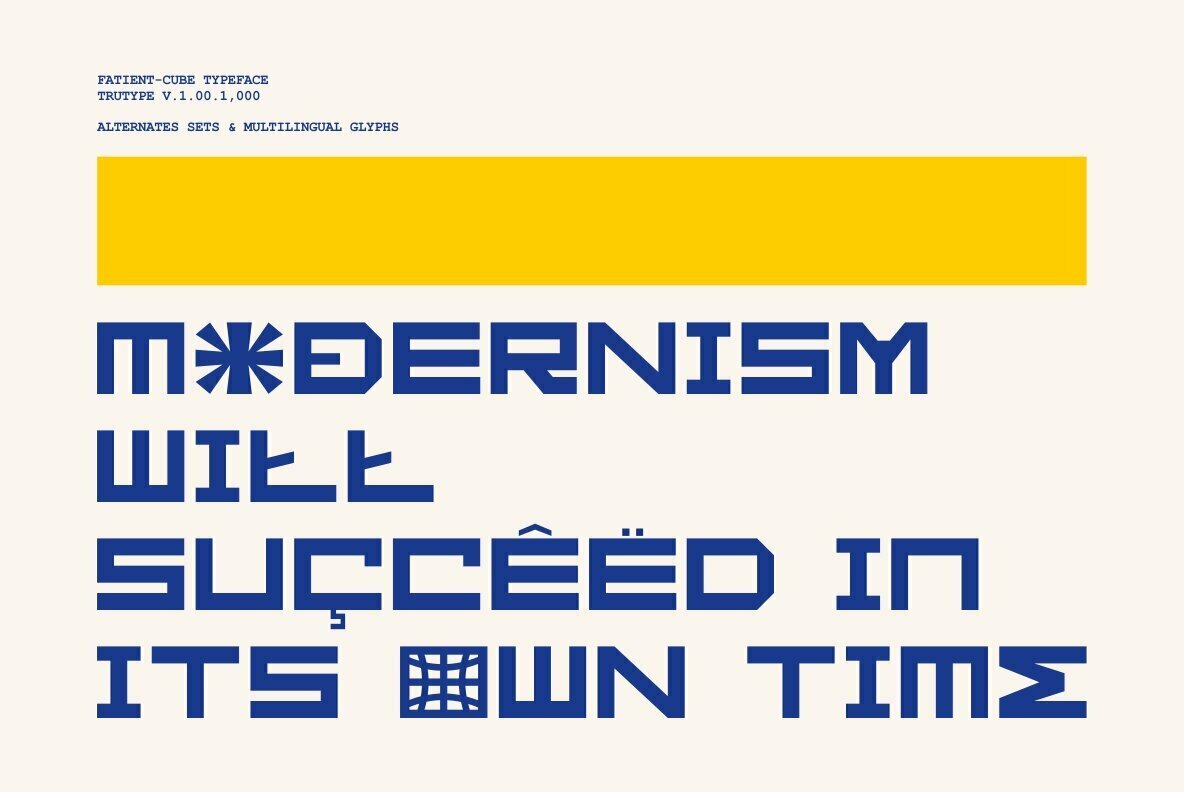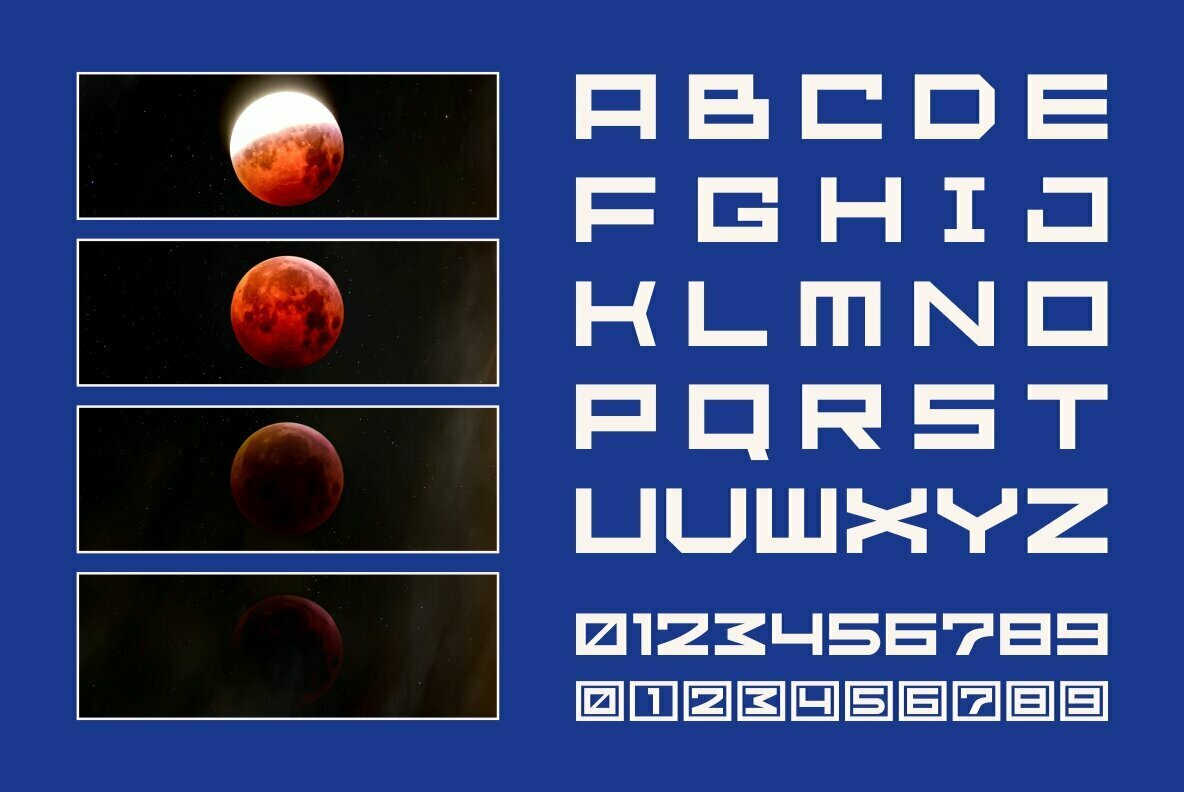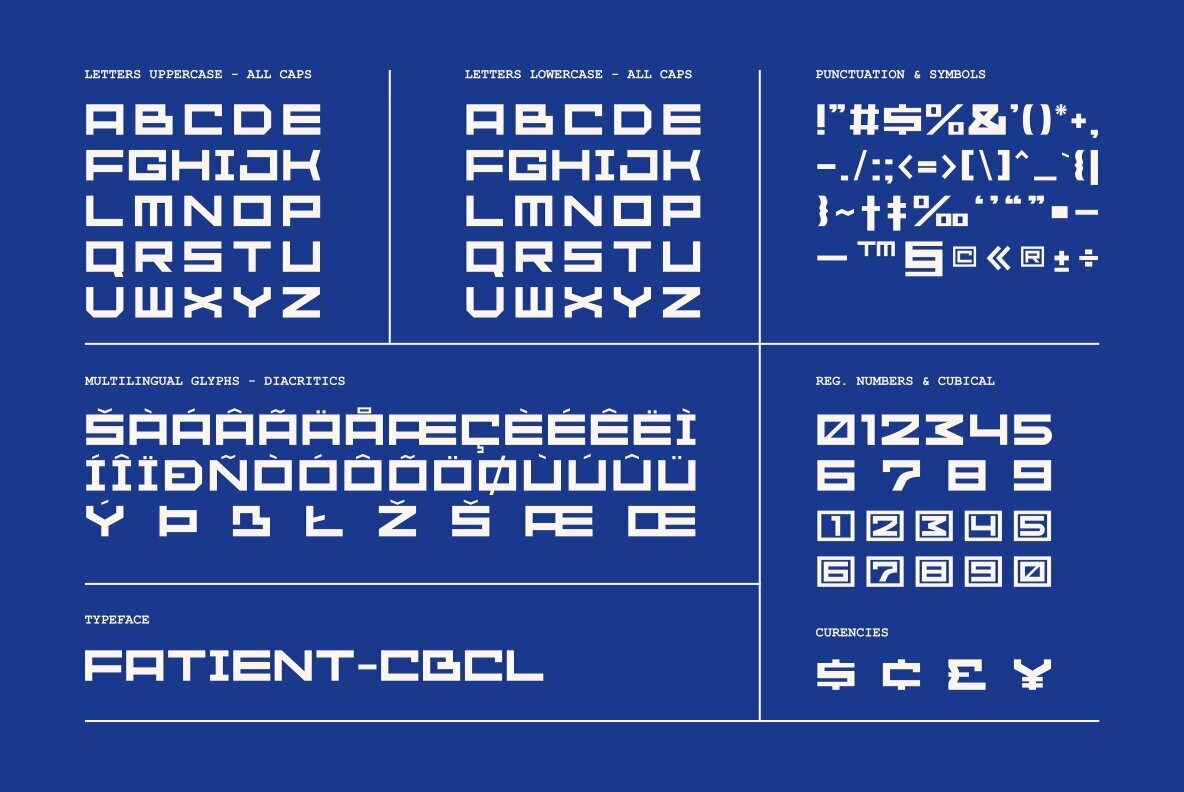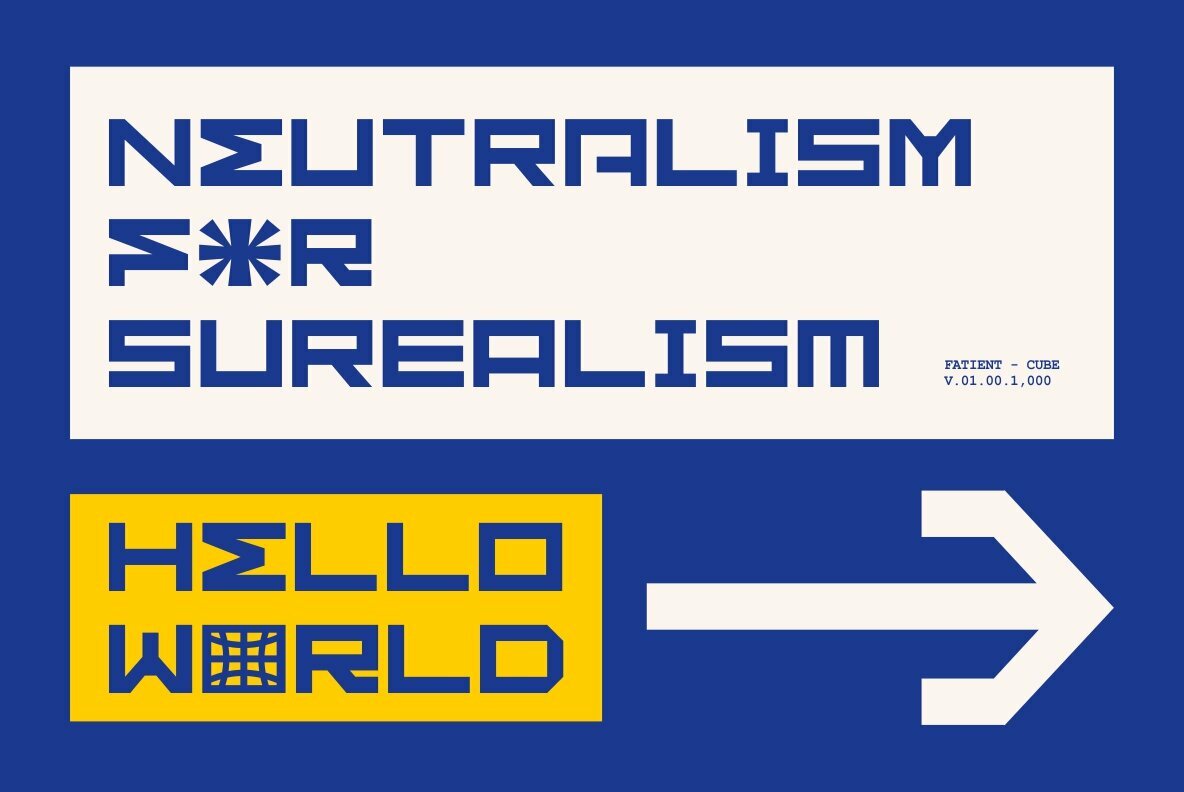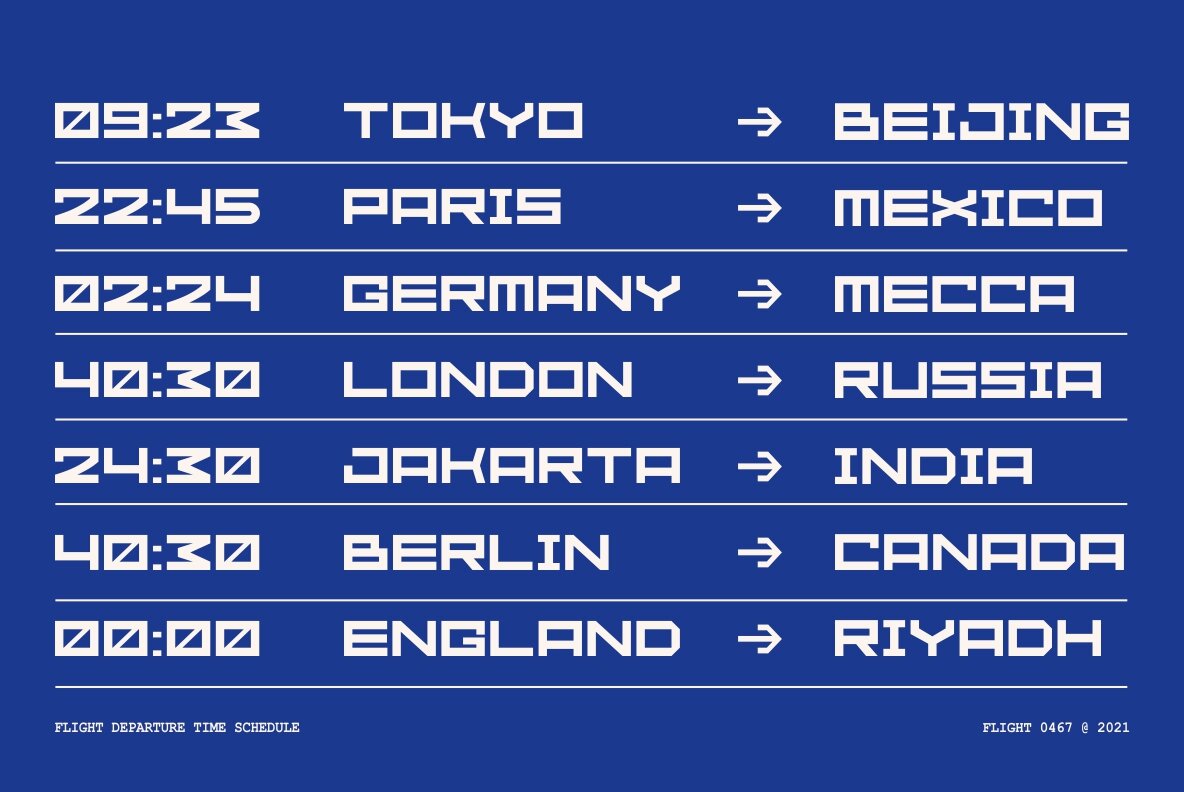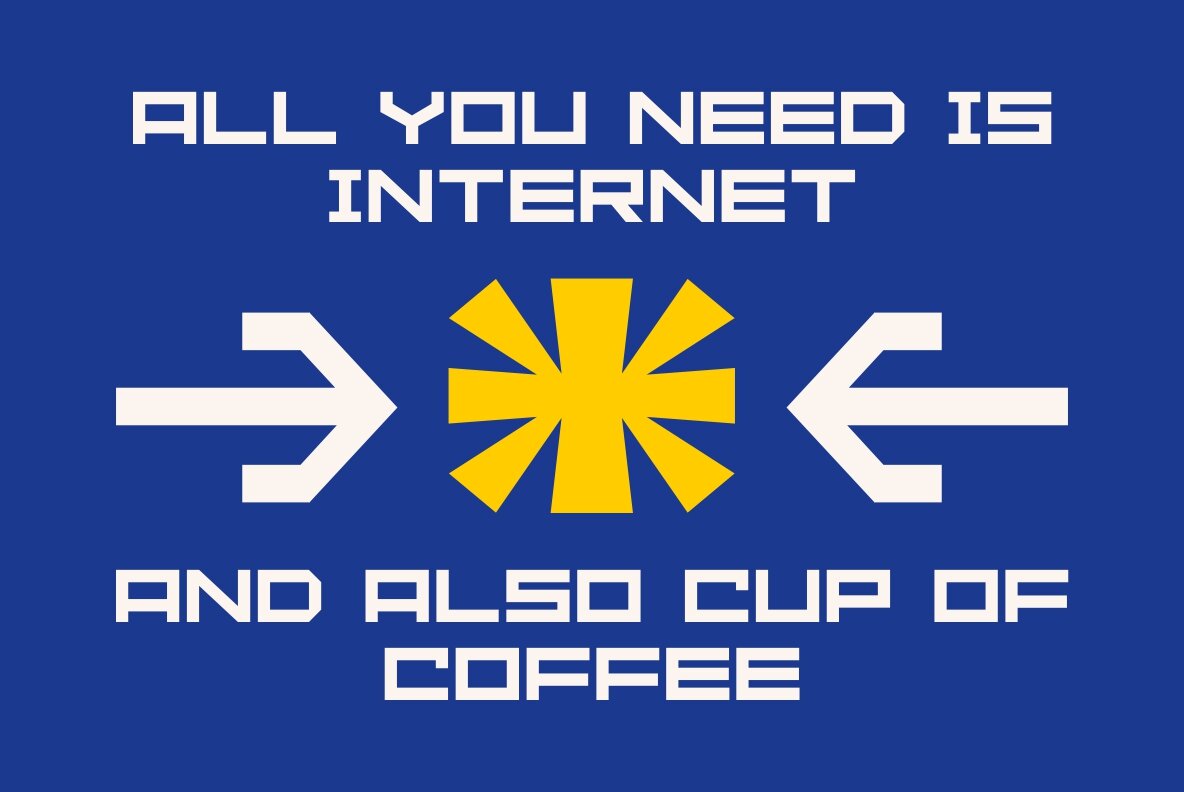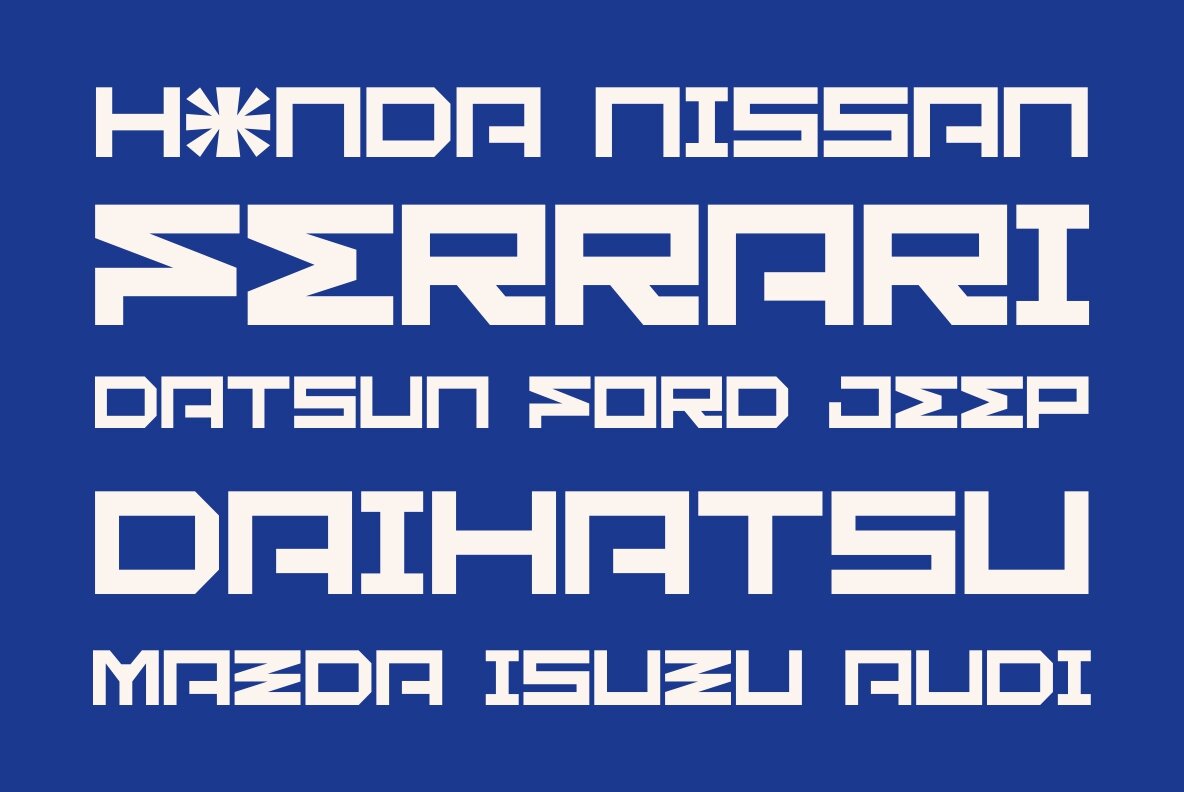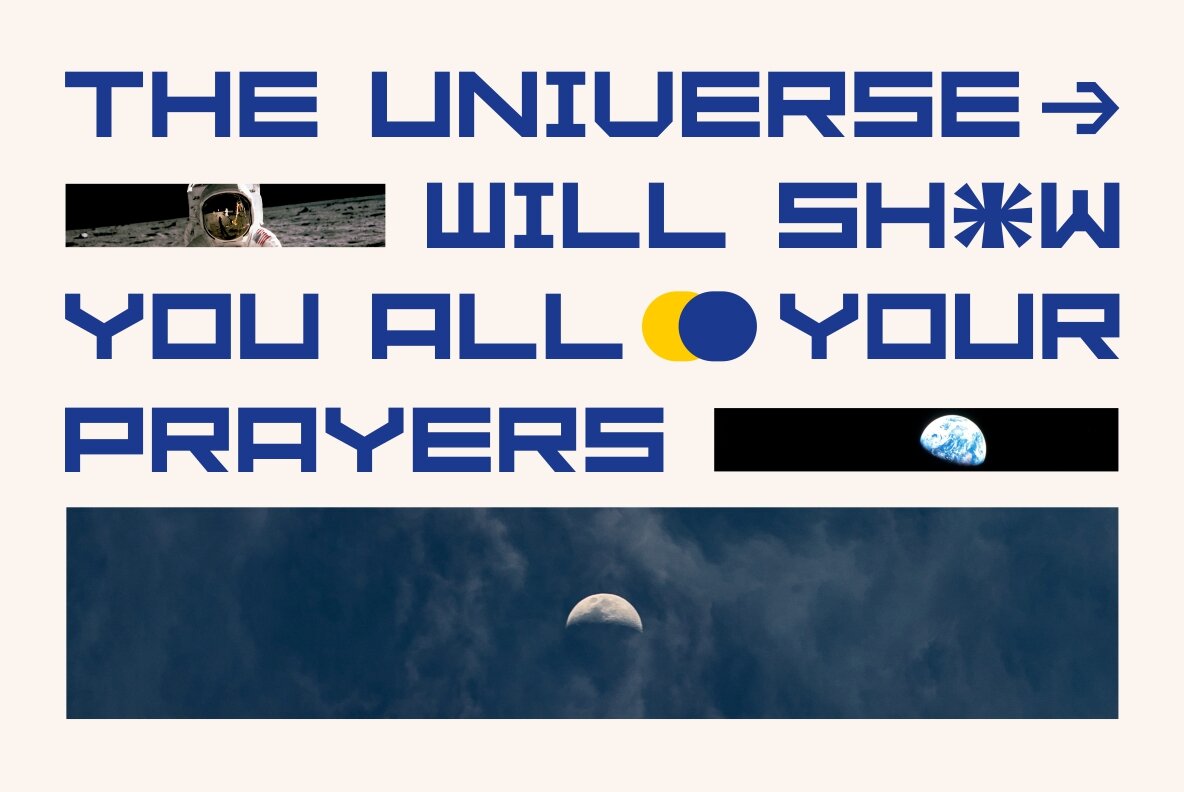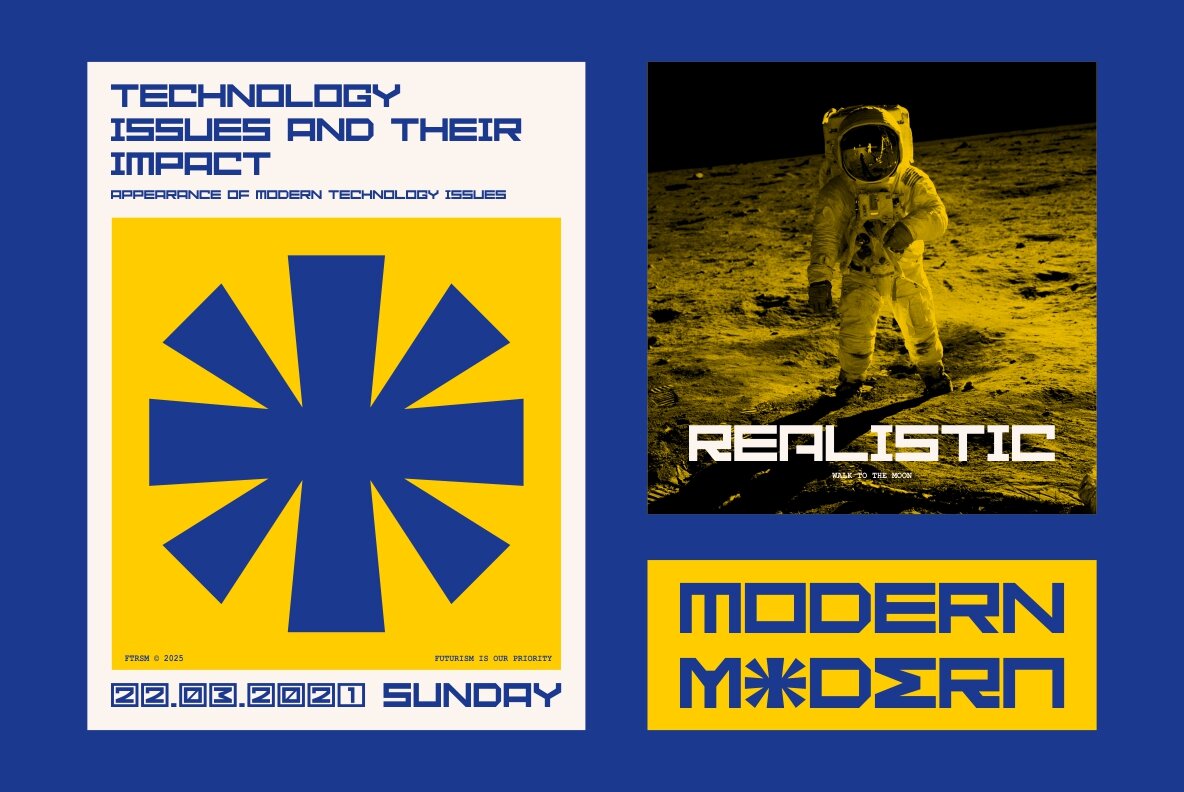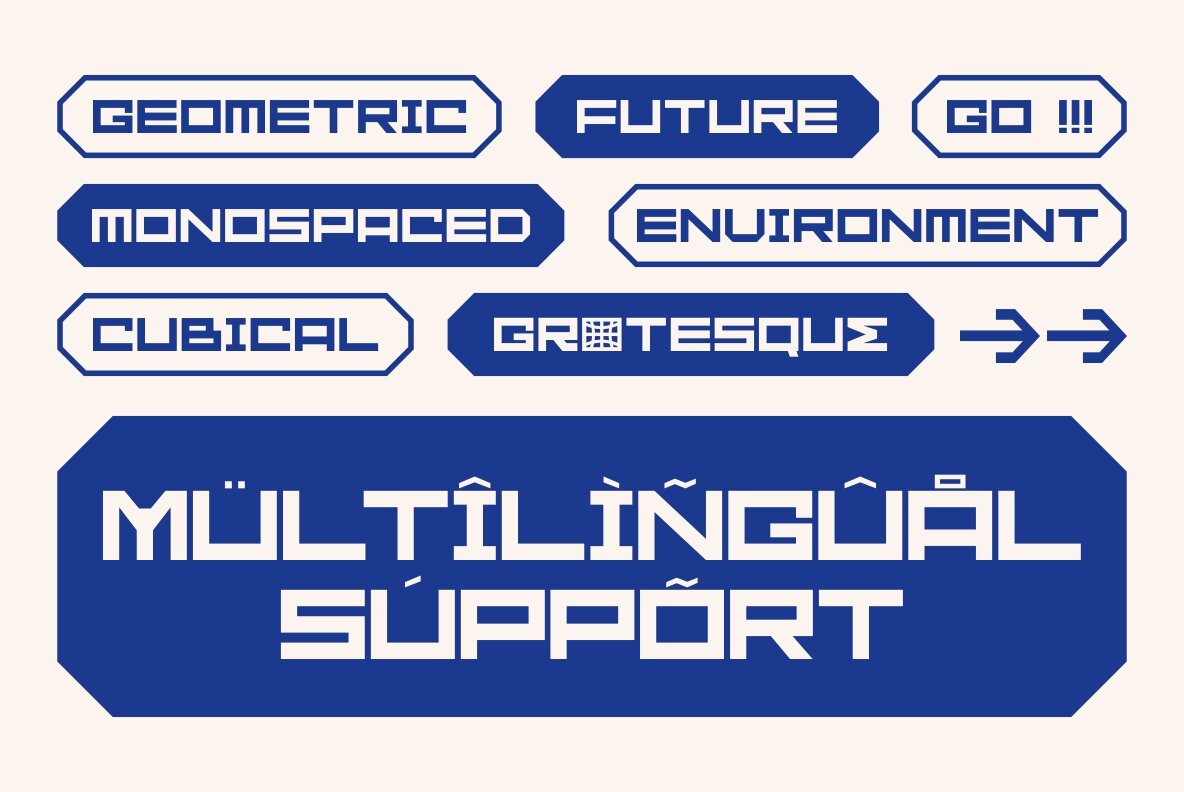
GR Fatient: Modern Font with Futuristic Flair
GR Fatient is crafted for the contemporary landscape, drawing inspiration from typography across print and digital media. With a sleek, modern style, it injects a futuristic vibe into your creative projects.
Ideal for various applications, this font excels in logotype designs, posters, and typography-centric projects like t-shirts and tickets. Its versatility makes it a remarkable choice for any modern design endeavor.
Features:
• All caps letters
• Numbers & punctuation
• Opentype Features: Stylistic Sets